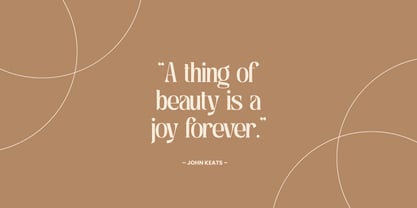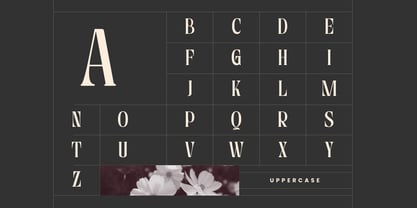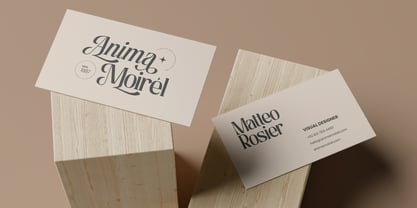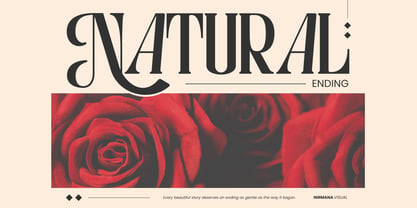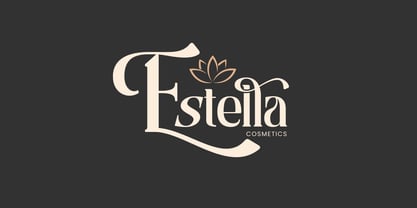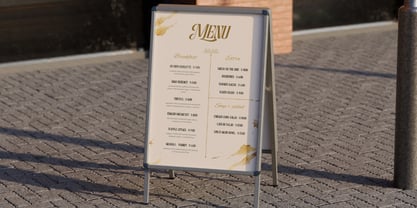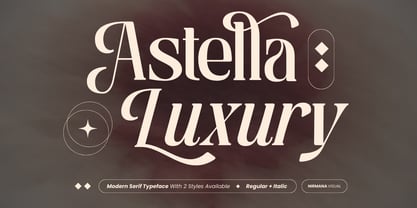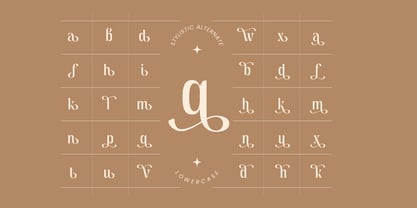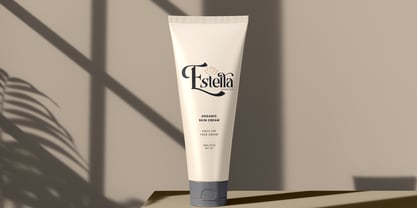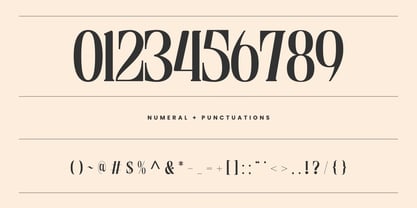
Astella Luxury
by Nirmana Visual
The Astella Luxury Font Family was designed by Sigit Dwipa and published by Nirmana Visual. Astella Luxury contains 2 styles and family package options. More about this family
Astella Luxury is a refined serif display typeface crafted for elegant logo design, premium branding, and high-end visual identity. Designed with graceful proportions and sharp contrast, Astella brings a sophisticated presence to fashion labels, jewelry brands, beauty products, and editorial layouts. It comes with regular and italic styles, enriched with beautiful ligatures that enhance its luxurious character. Perfect for creating timeless, classy, and exclusive brand impressions.